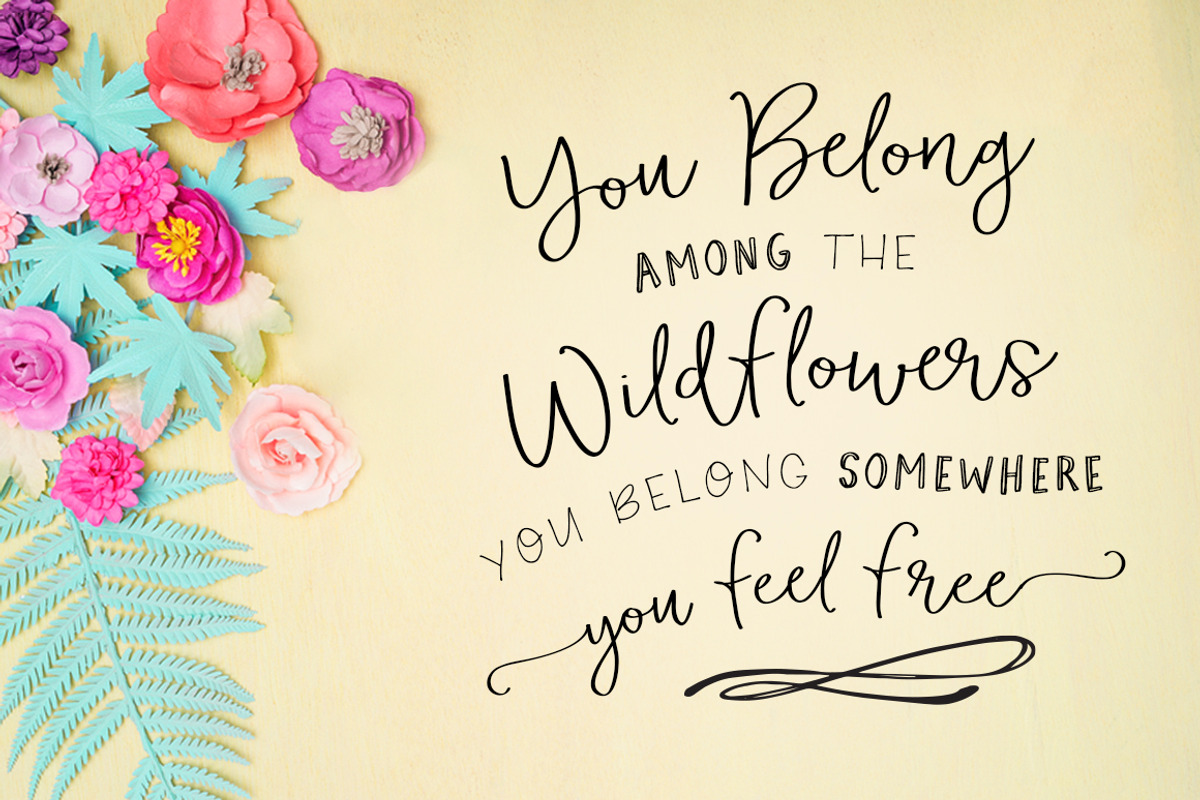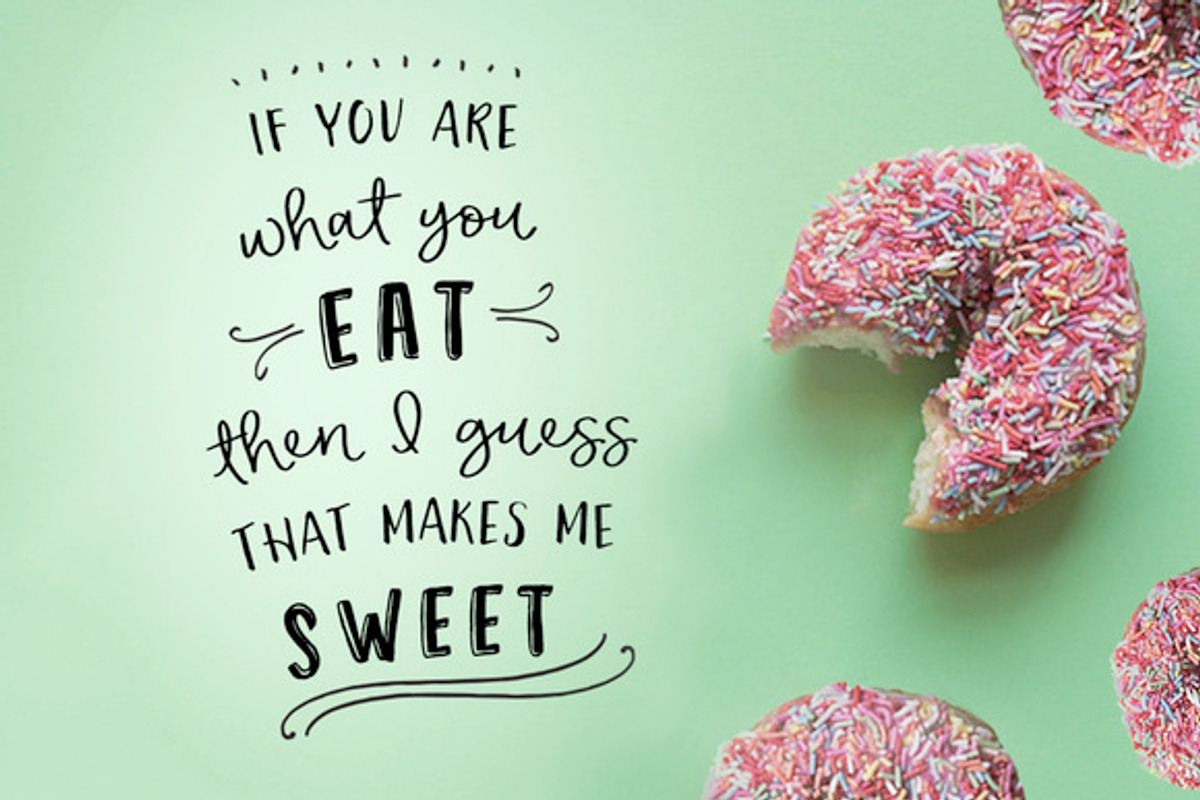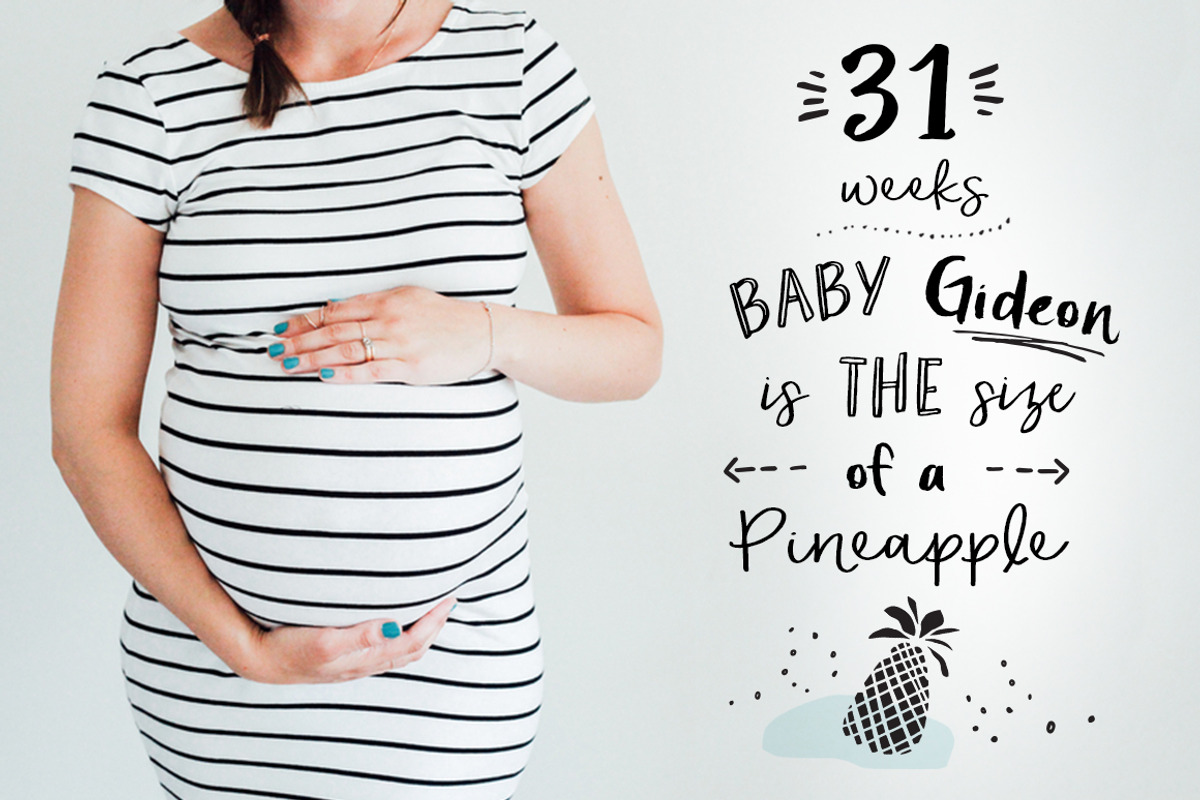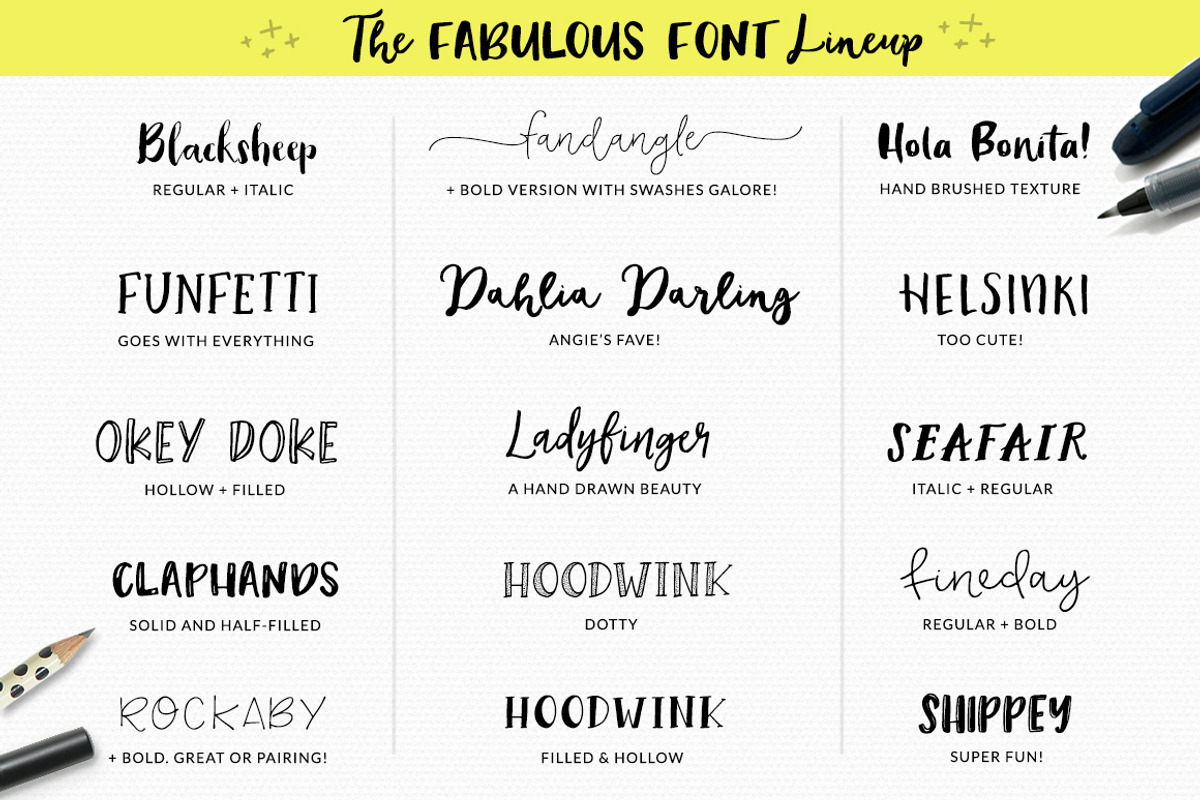
Angie Makes Font Bundle of Glory
Angie Makes Font Bundle of Glory by Angie Makes is a font selected for branding, posters, packaging, typography.
- Introducing the long-awaited, delightfully handmade ★ANGIE MAKES FONT BUNDLE OF GLORY★ This bundle contains goods that could easily value mo
- HERE'S WHAT IS INCLUDED: ★The Fonts★ Blacksheep: Regular + Italic.
- Introducing the long-awaited, delightfully handmade ★ANGIE MAKES FONT BUNDLE OF GLORY★ This bundle contains goods that could easily value mo
- HERE'S WHAT IS INCLUDED: ★The Fonts★ Blacksheep: Regular + Italic.
- Uppercase is half-filled and lowercase is solid.
- Uppercase is filled and lowercase is hollow.
Why Angie Makes Font Bundle of Glory is worth a look
Angie Makes Font Bundle of Glory by Angie Makes fits naturally into Branding, posters, packaging, typography.